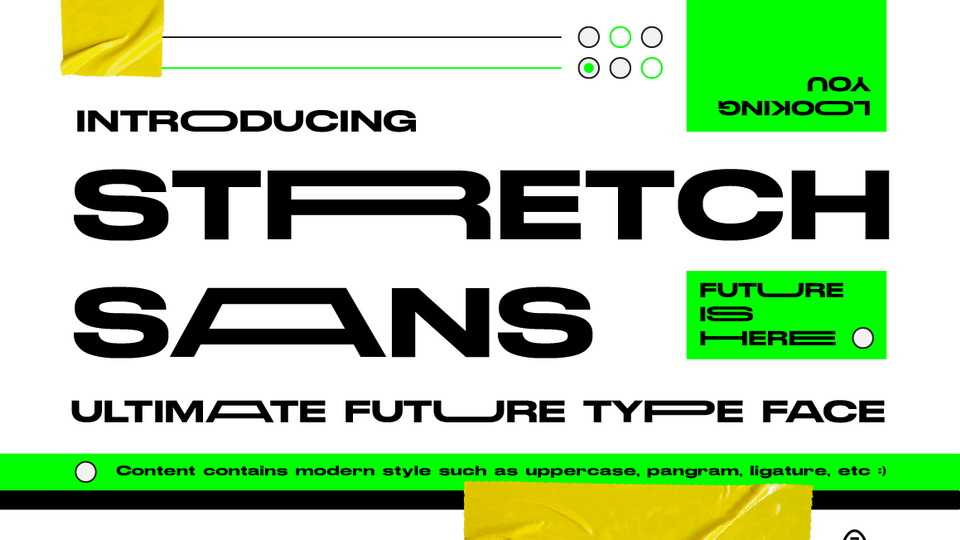
Download Stretch Sans font, a cool sans serif typeface with a futuristic and modern theme. With its neat and beautiful arrangement of letters, Stretch Sans will look outstanding in both formal and non-formal designs.
Designer: Khairil Anwar